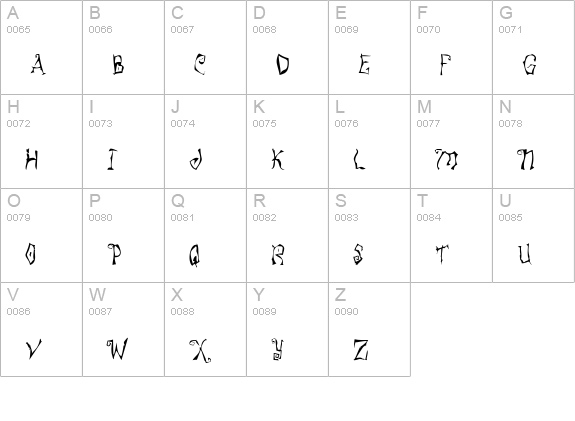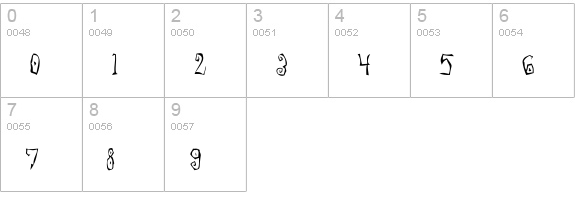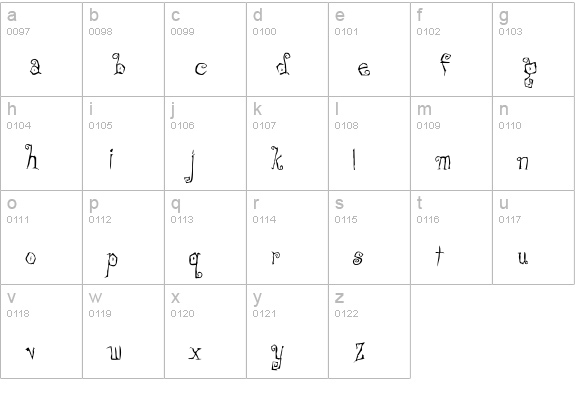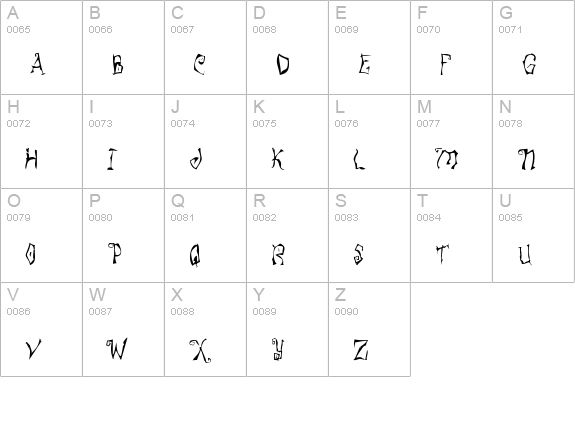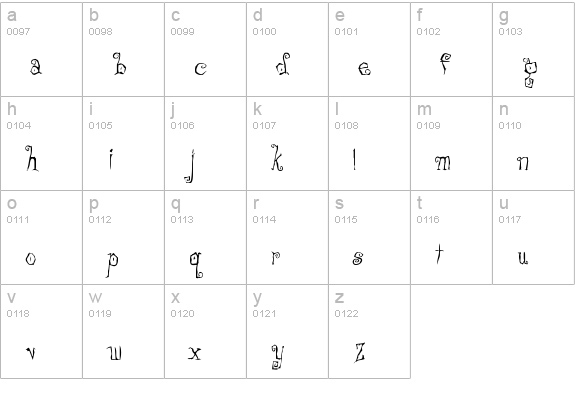
Freakshow-ScaryA Font Details
Freakshow-ScaryA font is an eerie and captivating typeface that is perfect for adding a touch of horror and intrigue to your designs. With its twisted and sinister appearance, this font is sure to make a statement and leave a lasting impression on viewers. The jagged edges and unique letter shapes of Freakshow-ScaryA give it a distinct and macabre look that is ideal for Halloween-themed projects, haunted house flyers, horror movie posters, and more. The best part about Freakshow-ScaryA font is that it is available for free download at FontsMarket.com, making it easily accessible for all your design needs. Whether you're looking to add a creepy vibe to your designs or just want to experiment with a bold and unconventional typeface, Freakshow-ScaryA is the perfect choice. Download it today and unleash your creativity with this hauntingly beautiful font!